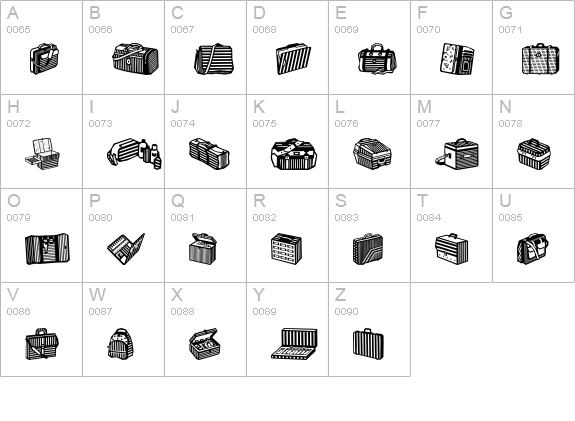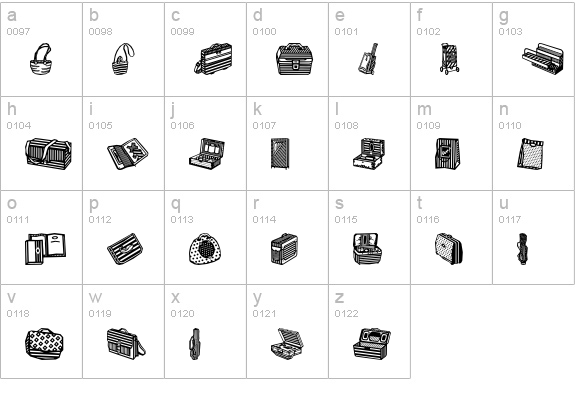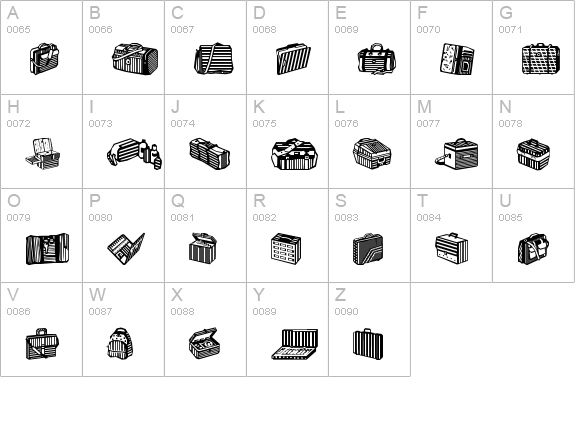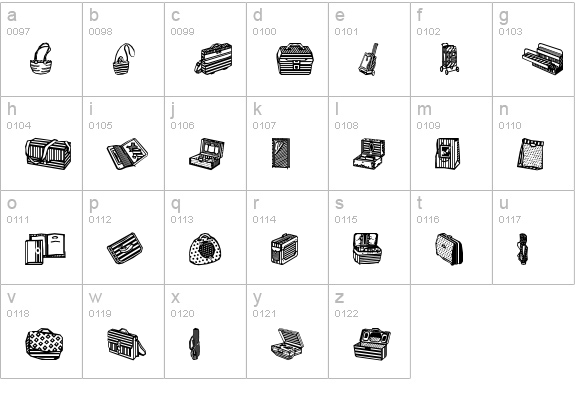
Bags and stuff II Font Details
Bags and stuff II font is a playful and whimsical typeface that exudes a sense of fun and creativity. With its quirky and unique design, this font is perfect for adding a touch of personality to any project. Whether you're designing a poster, logo, or social media graphic, Bags and stuff II font will make your text stand out. The best part? Bags and stuff II font is available for free download at FontsMarket.com. Simply visit the website and start using this charming font in your designs today. Let your creativity run wild with Bags and stuff II font and watch your projects come to life with its distinctive flair.